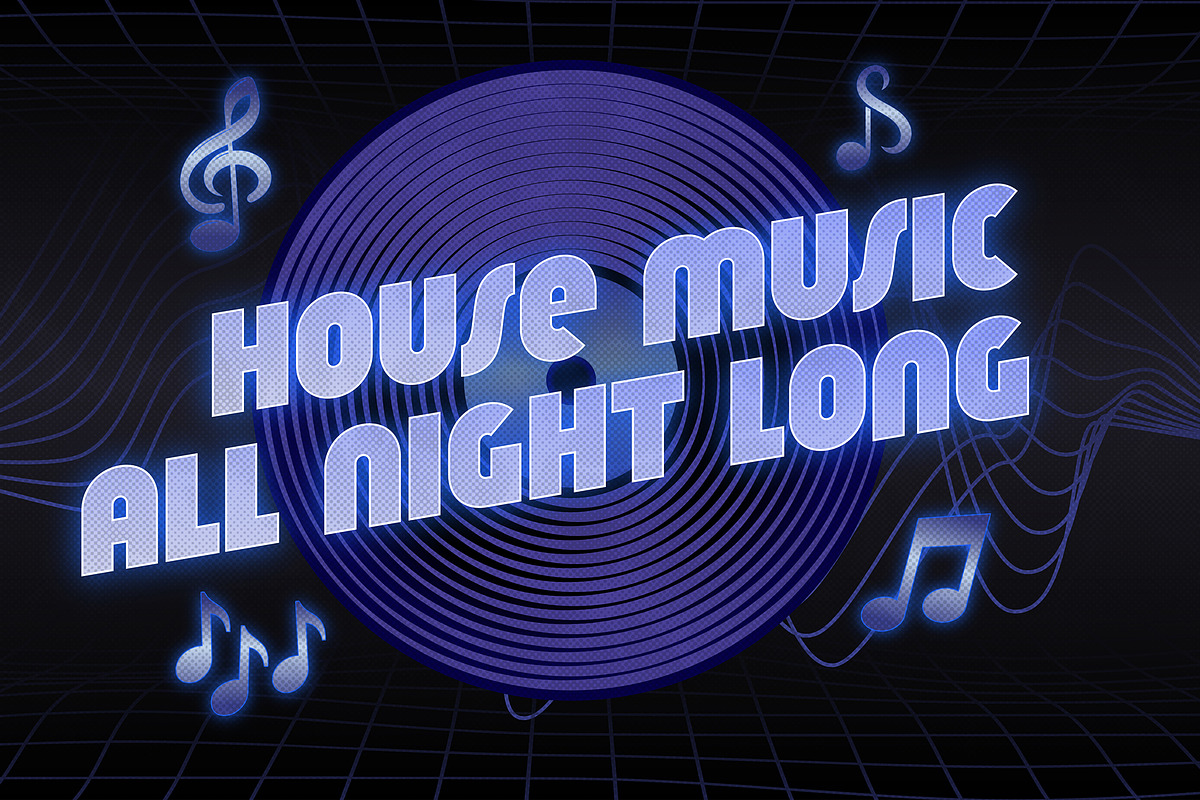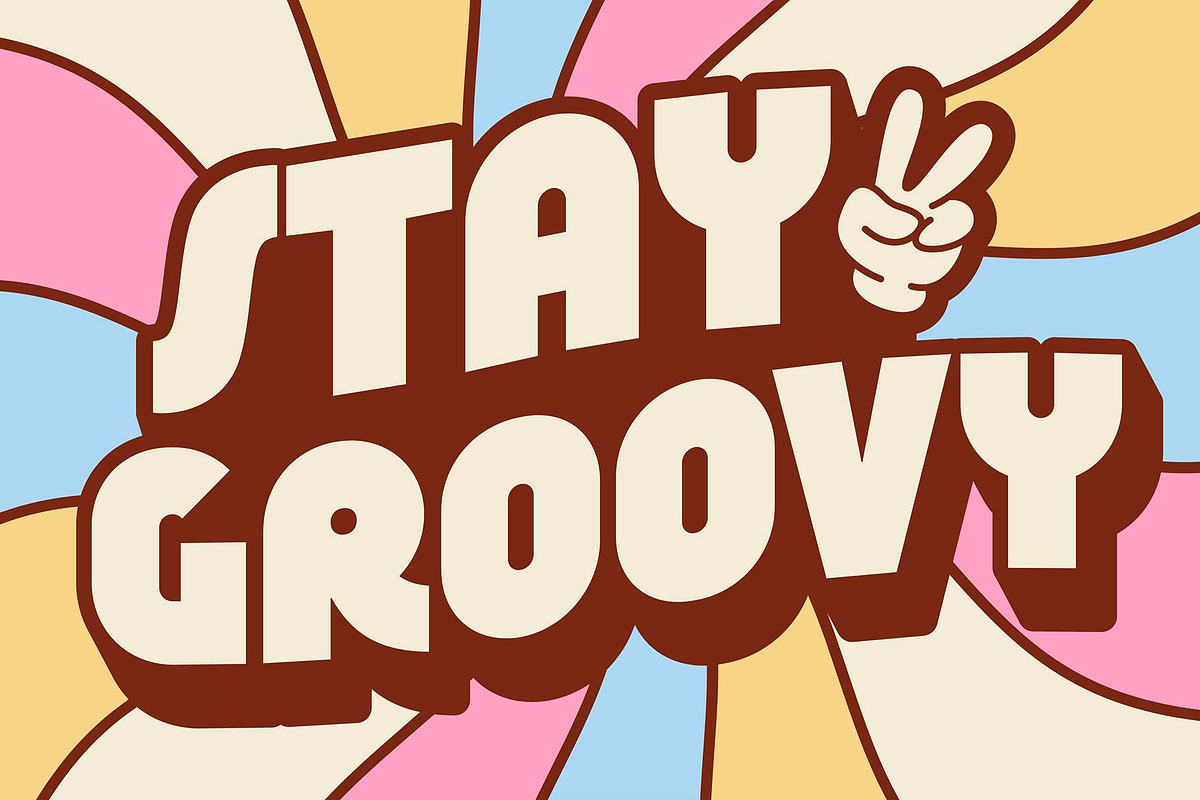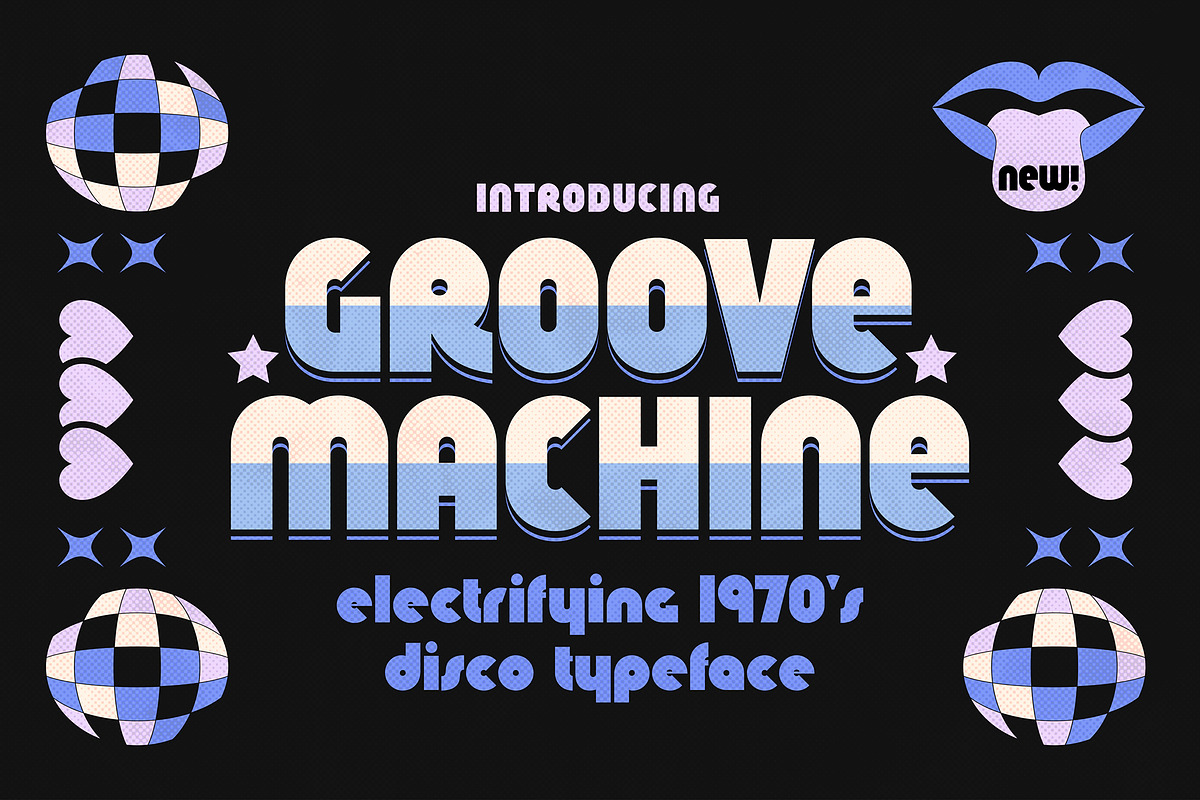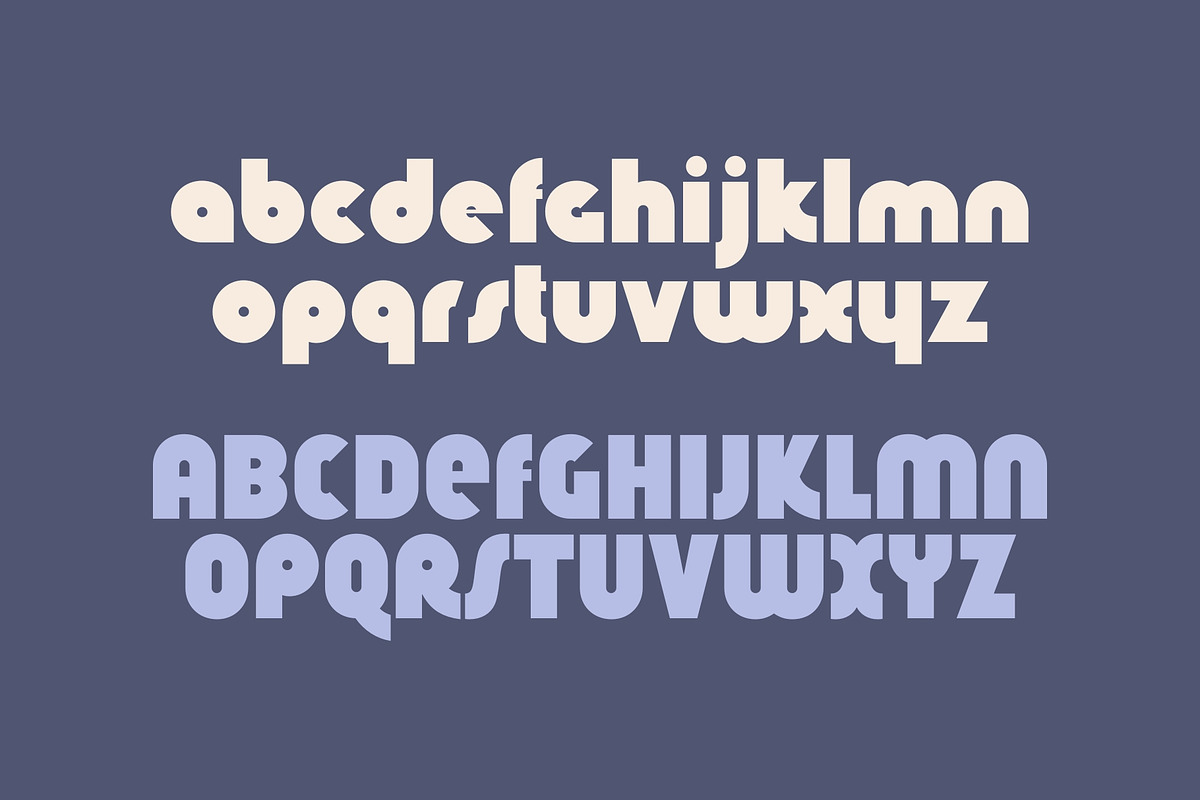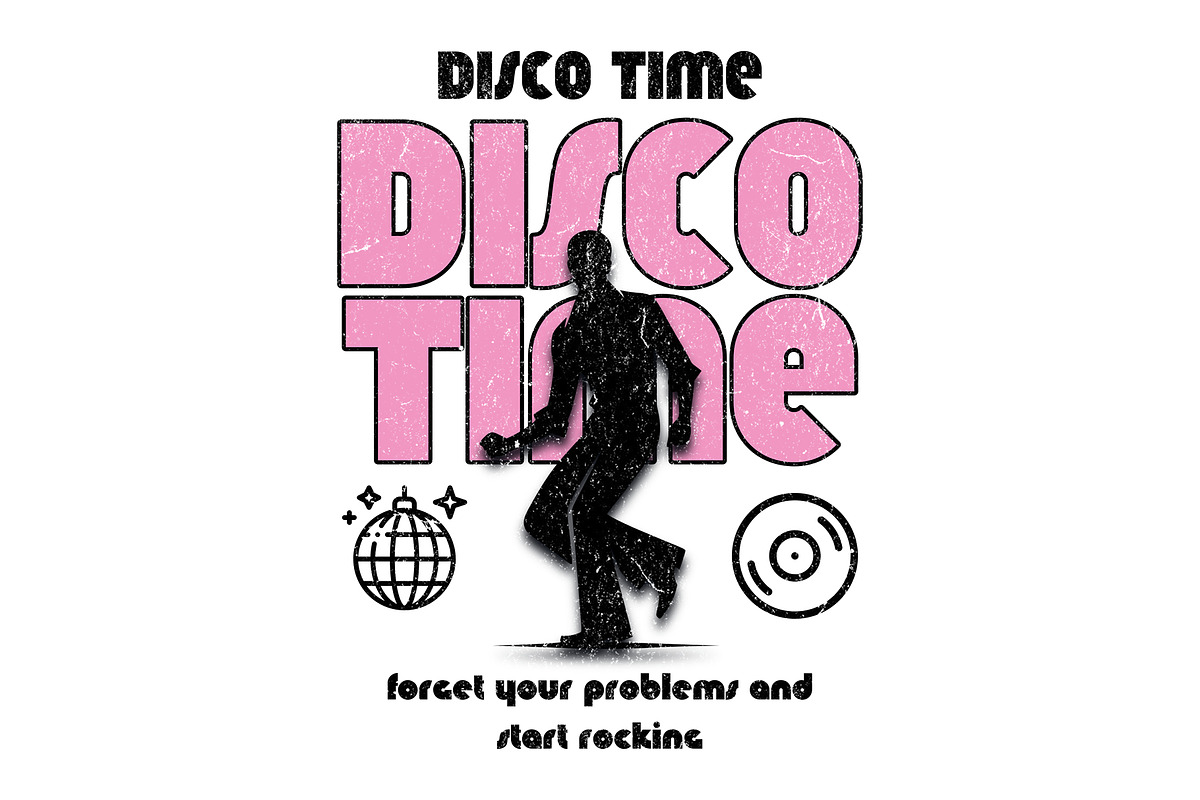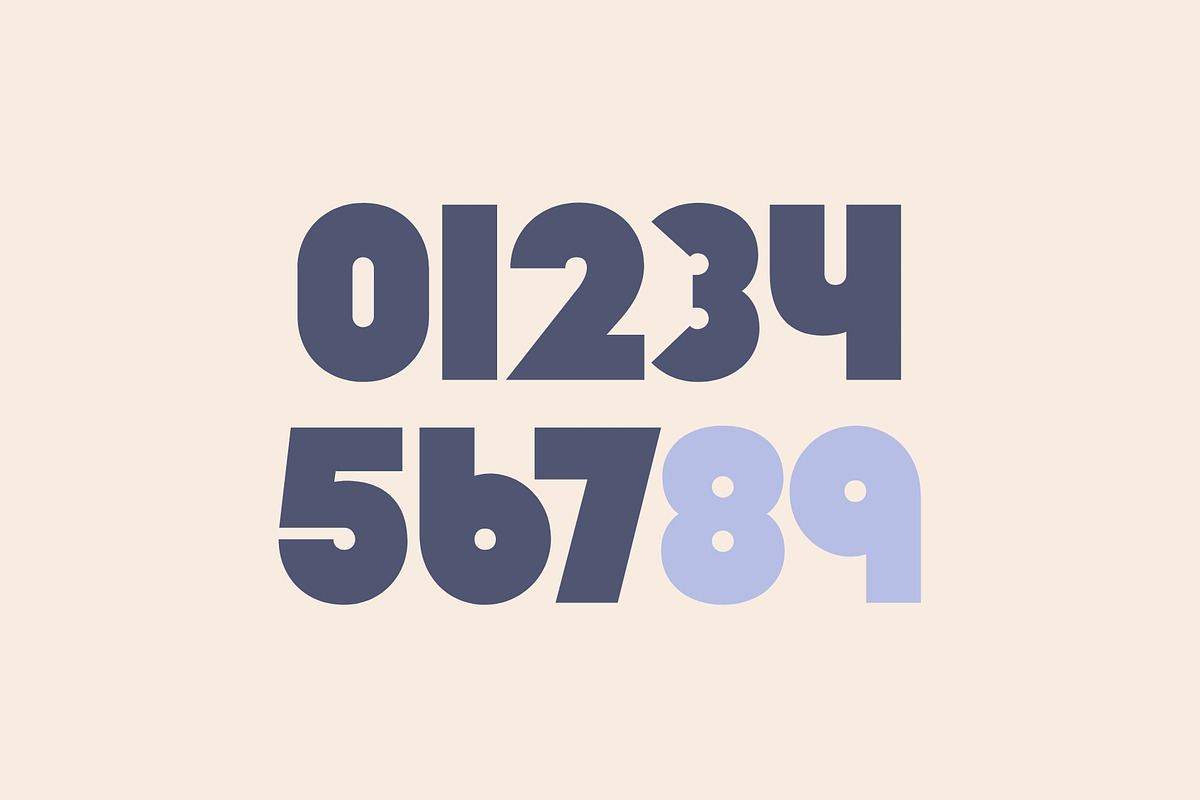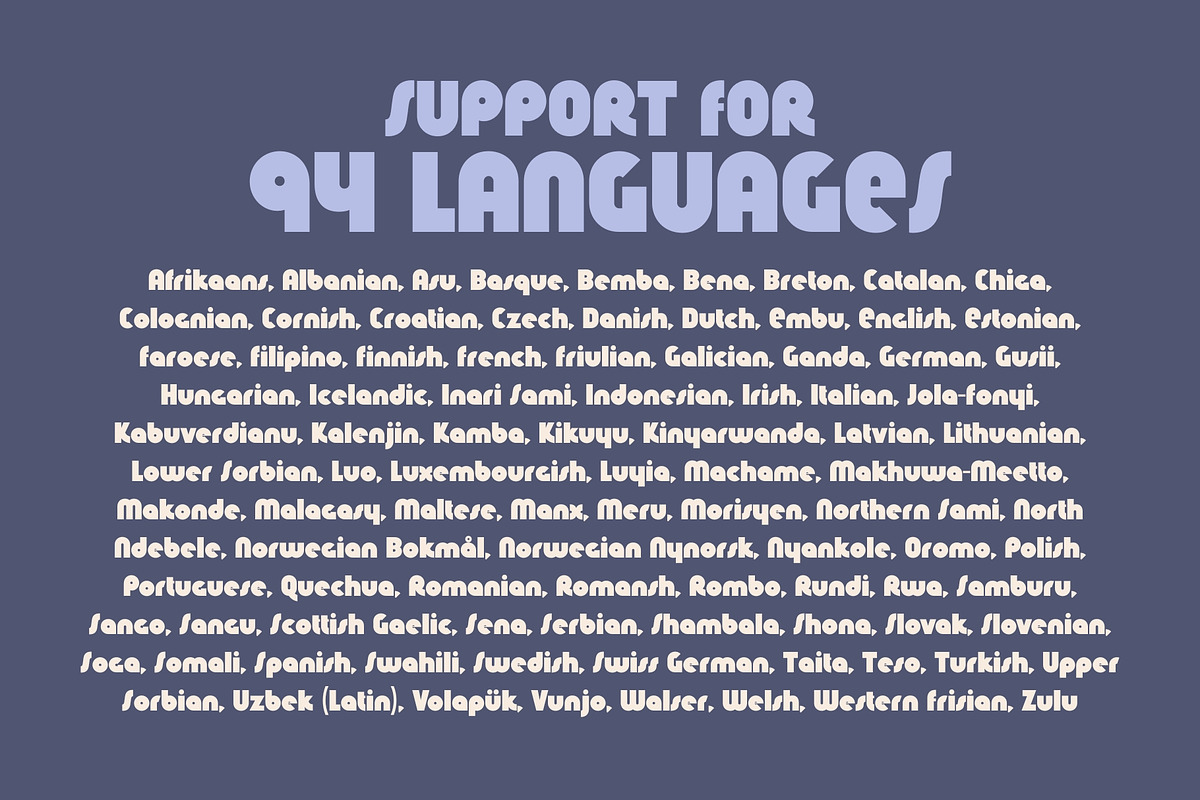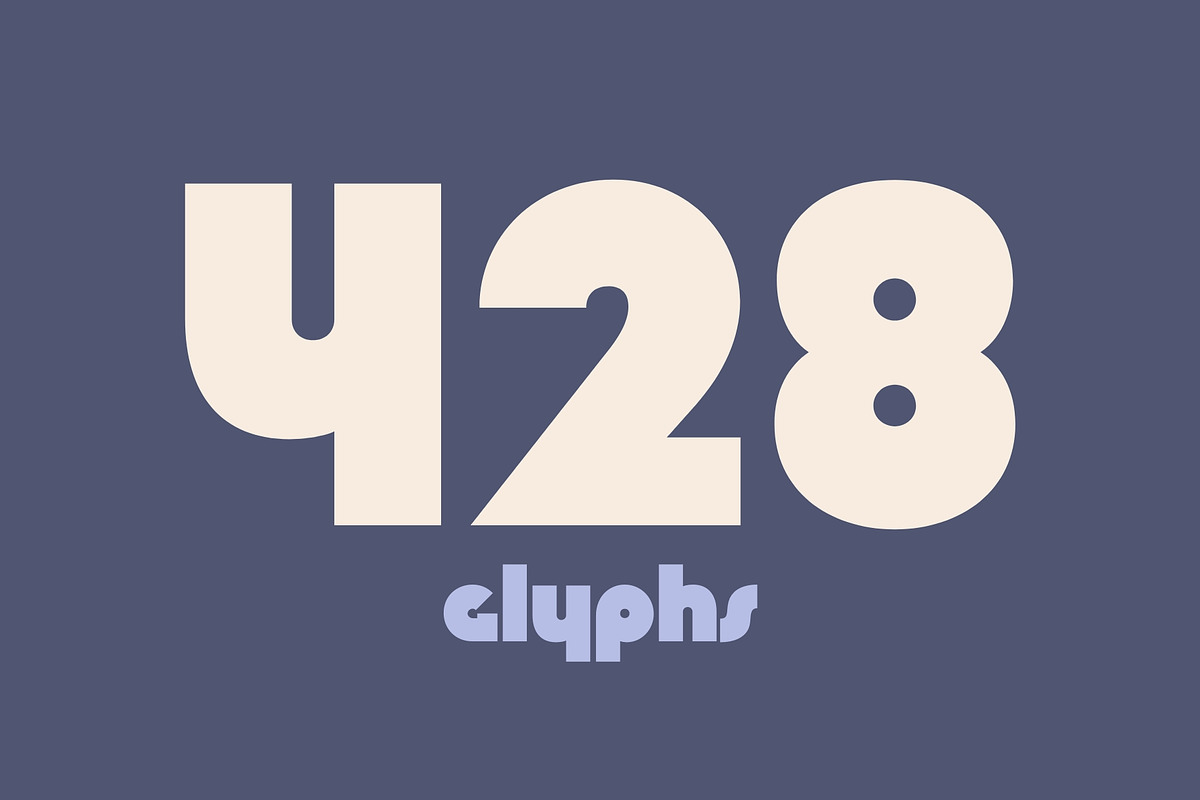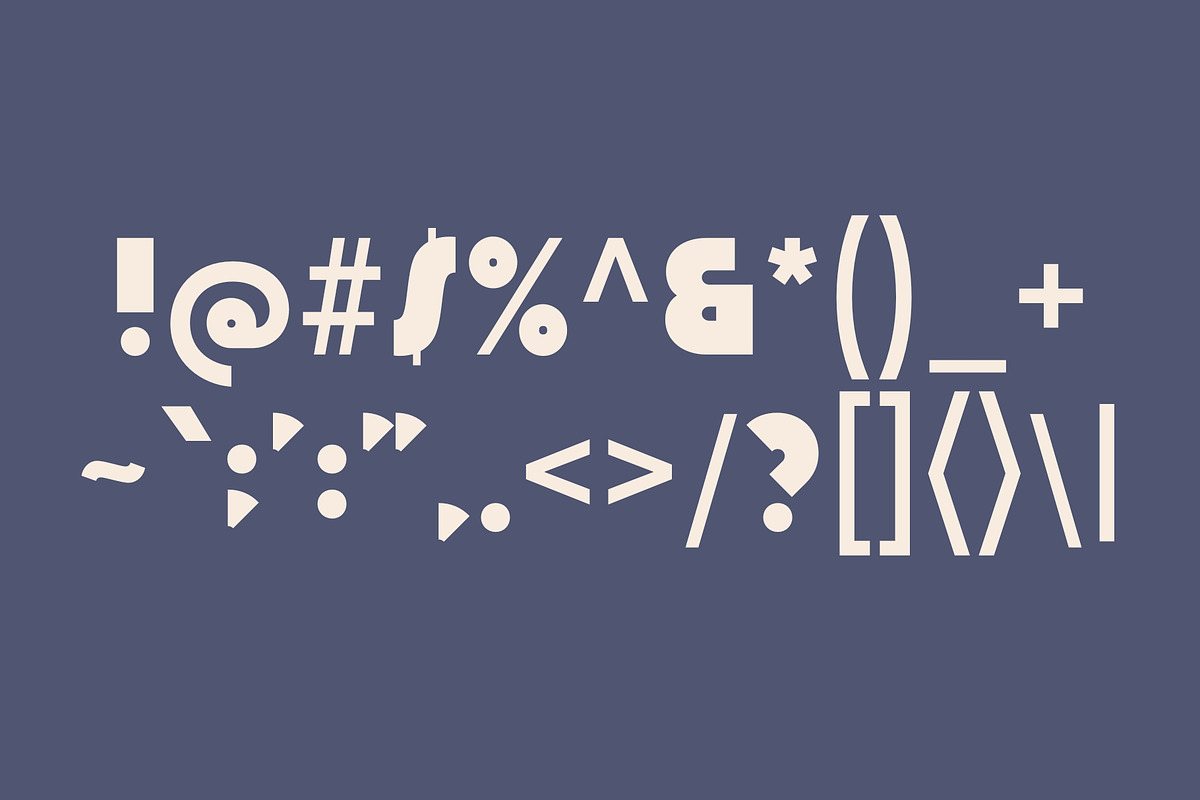
Groove Machine - 1970's Disco Type
Get ready to boogie with Groove Machine, a bold and electrifying typeface that captures the unstoppable rhythm of the disco era. Inspired by the glitz and glam of 1970s and 1980s nightlife, this font struts onto the scene with big personality, dazzling curves, and high-energy flair.
Whether you're designing concert flyers, retro posters, vintage-inspired logos, or statement headlines that demand attention, Groove Machine delivers the perfect mix of funk, flash, and attitude. It’s not just a font, it’s a full-blown dance floor for your designs.
- 🕺 Disco & funk-inspired designs
- 🎤 Posters, flyers, and bold headlines
- 💿 Album covers & event promos
- ✨ Logos, branding & retro visuals
Groove Machine is your all-access pass to a typographic time machine, so fire up the strobe lights, crank the bass, and let your designs groove.